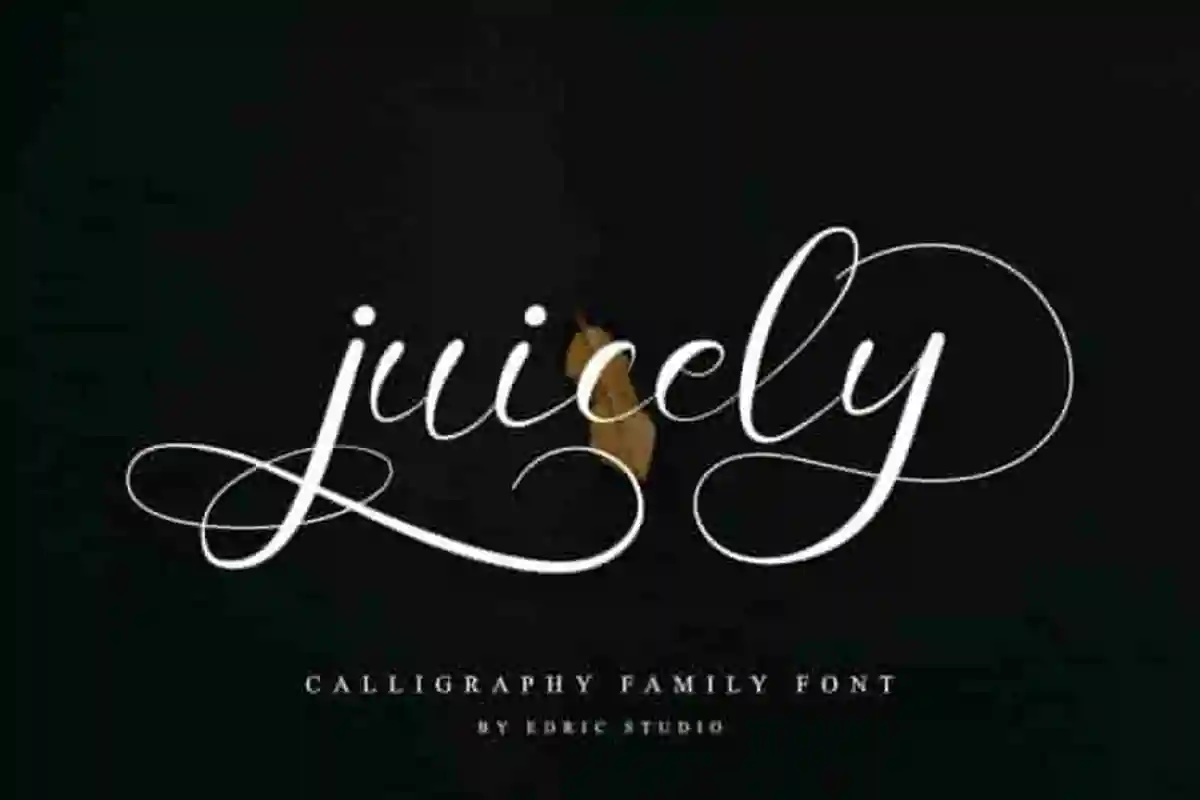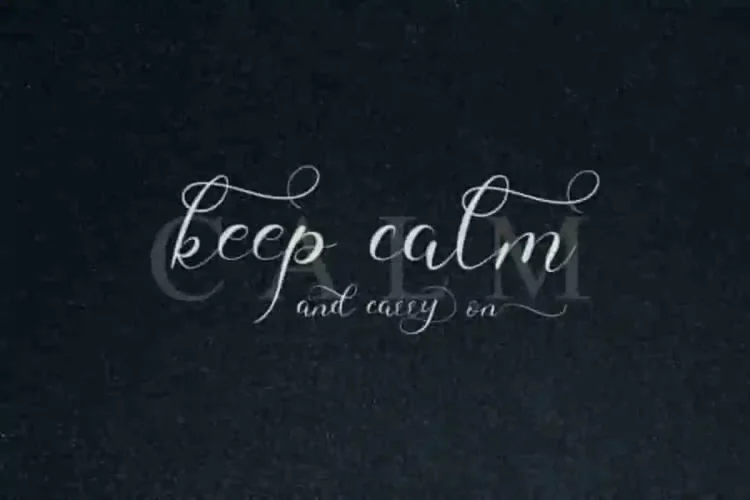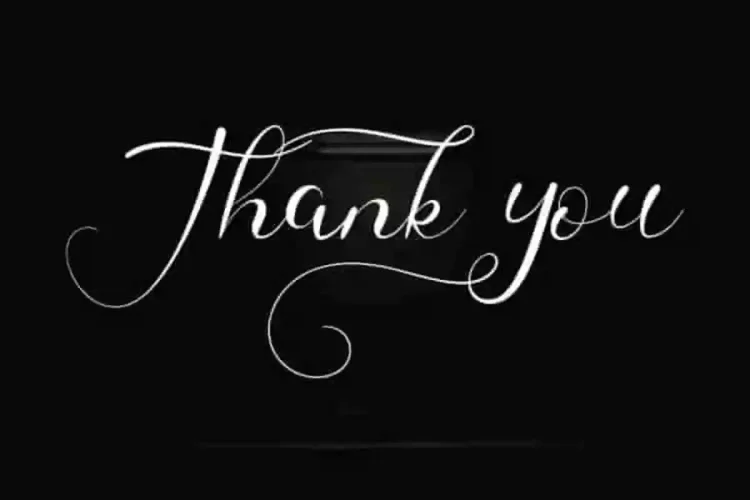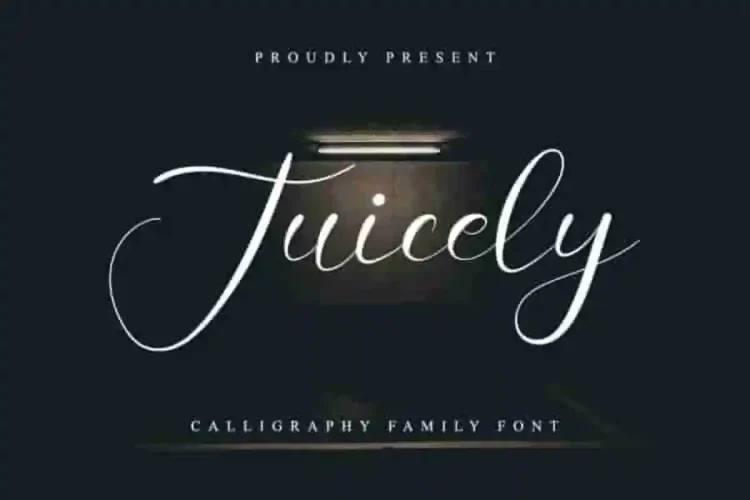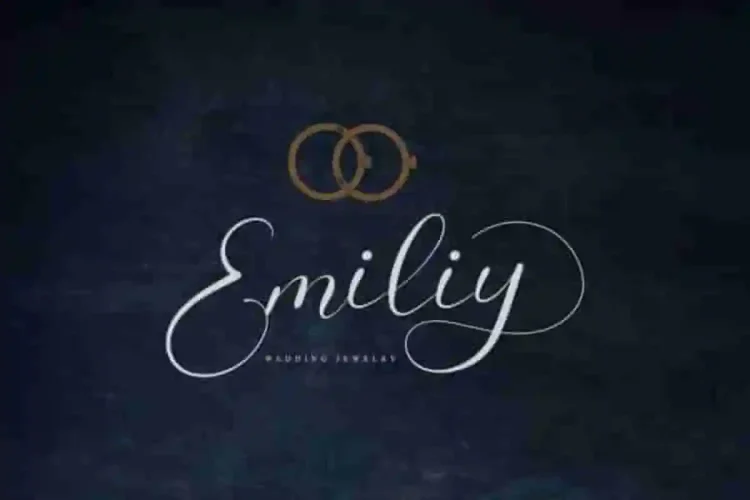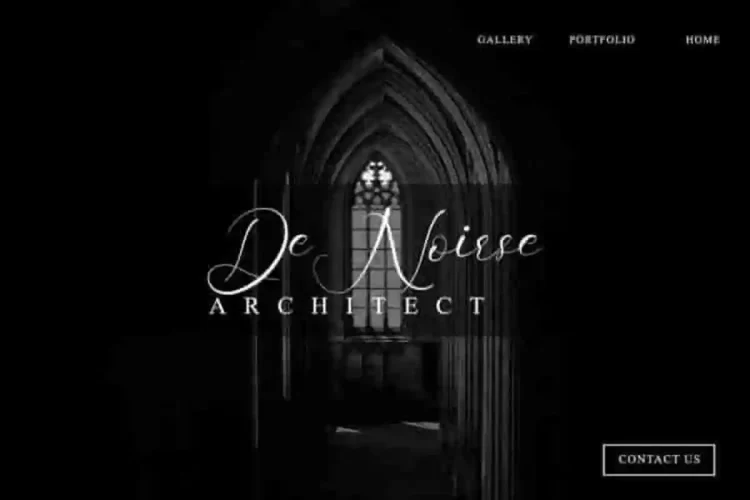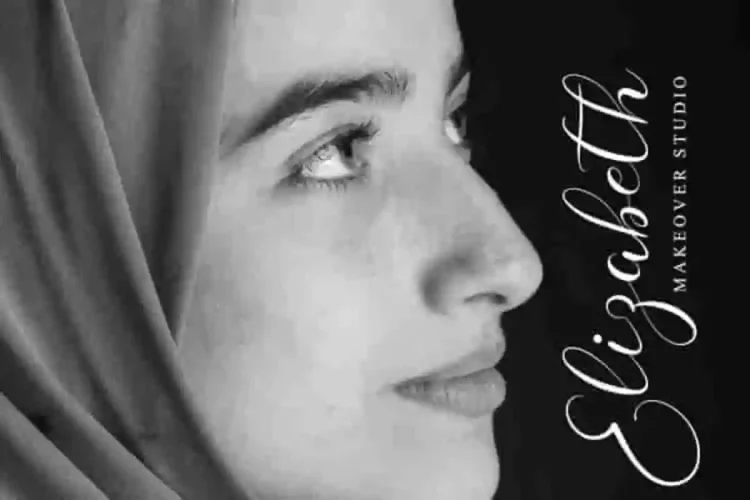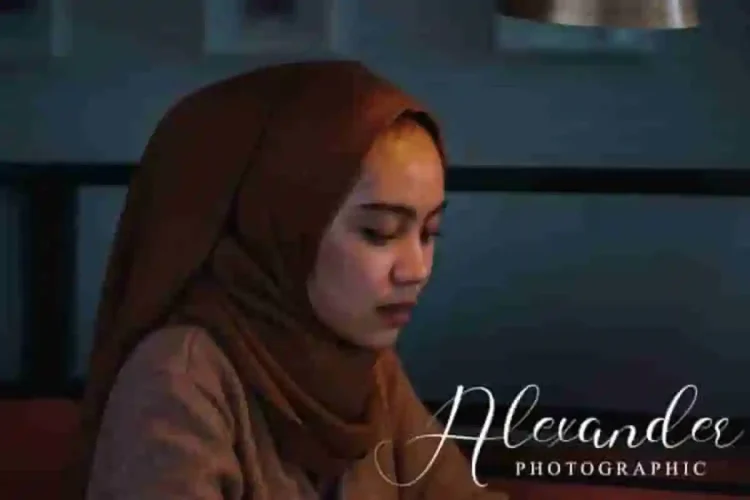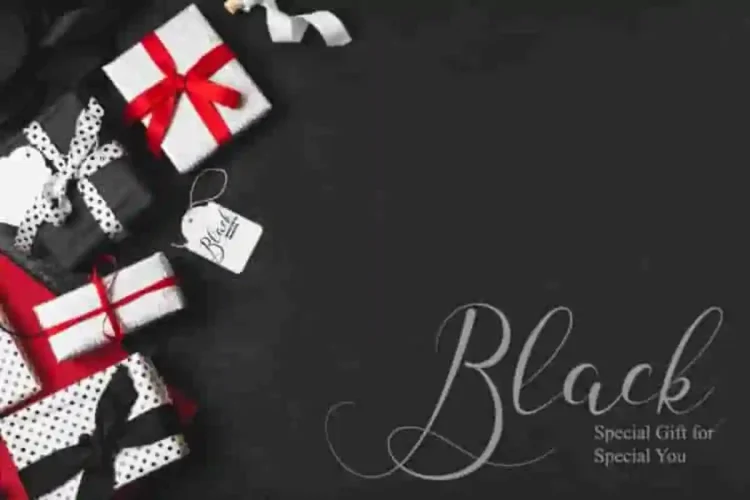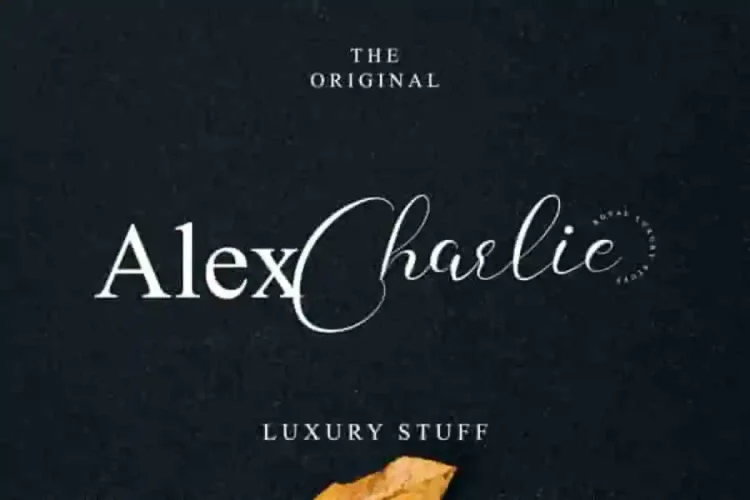
Juicely Calligraphy Script Font
Juicely Calligraphy Script Font is a calligraphy font script with stunning handwriting style, handcrafted from our Studio here in Indonesia. Designed with a beautiful handwritten style, this font captures the essence of elegance, charm, and modern simplicity. It has a stunning characters set, perfectly managed with well spaced and kerning. The theme style of this font is simple. elegant,  sophisticated, stylish, clean and classic signature style.
Juicely Calligraphy Script Font has unique brush calligraphy style. The font will be great for any projects (with extended license) including : branding, logo, stationery, business card, signage, flyer, brochure etc.